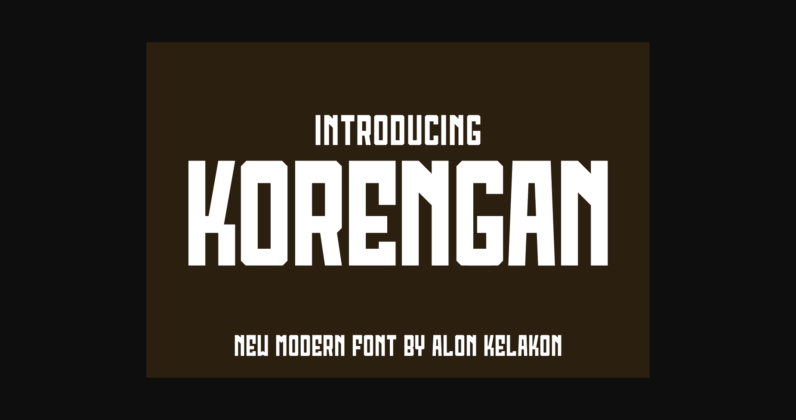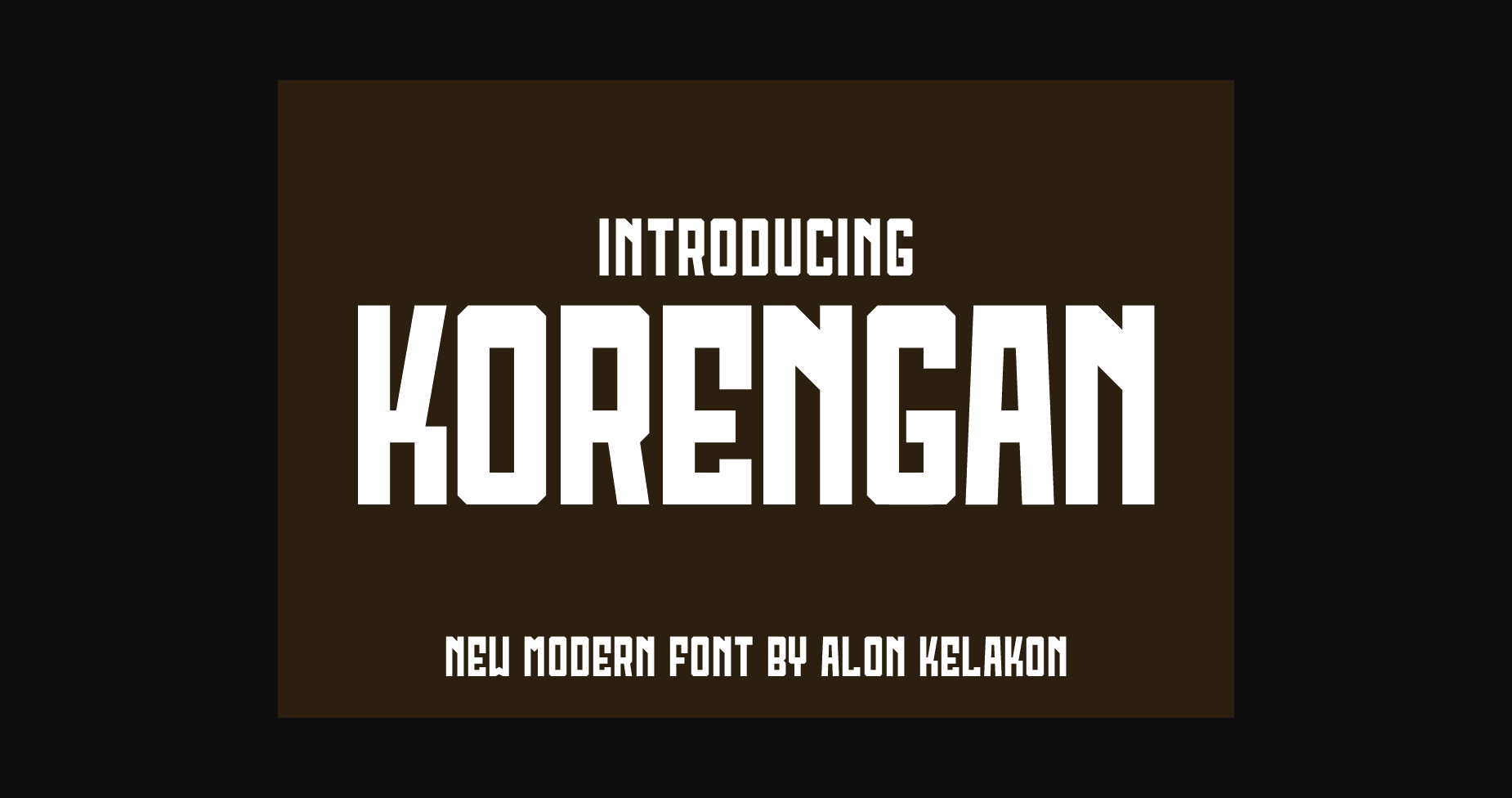
About Korengan Font
Korengan is a modern and attractive sans serif font. It’s ideal for contemporary designs, digital media, and advertising and can be used for headlines, body copy, and branding. Its minimalist design creates a stylish and eye-catching look, adding a modern touch to any project.